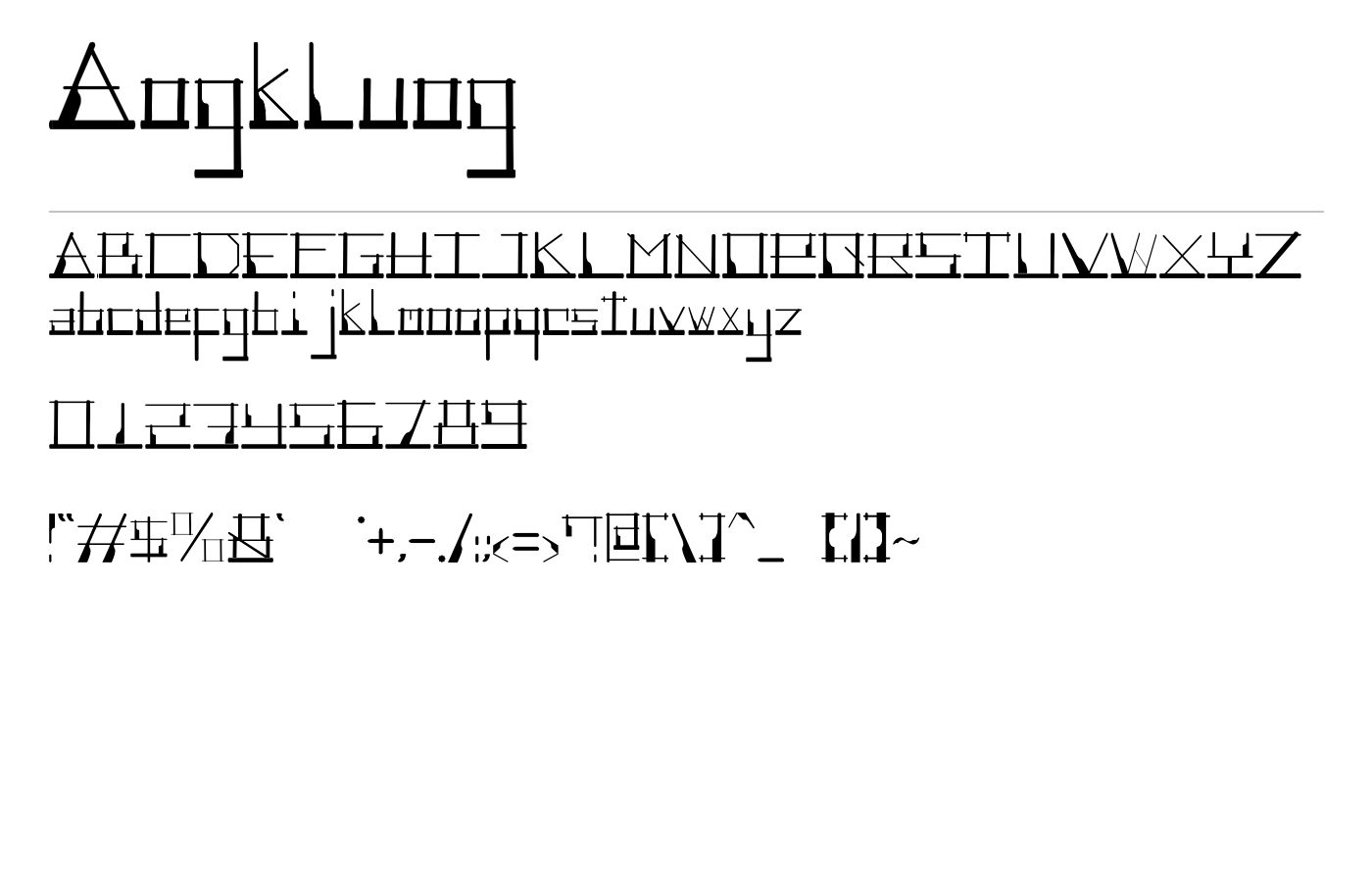
Angklung is a unique, modern sans serif font with a distinctly geometric and architectural feel. It features thin, angular strokes with a mix of sharp and uneven lines that give it an artistic, almost hand-drawn quality, making it suitable for creative and avant-garde design projects. This font works well for striking headlines, logos, and decorative purposes where a bold, unconventional look is desired.
| Font family | Angklung Font |
| Designer | Christian |